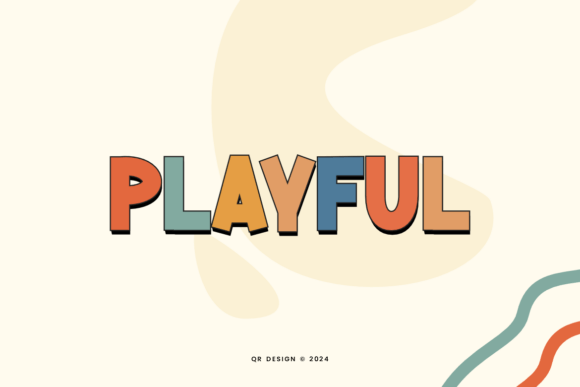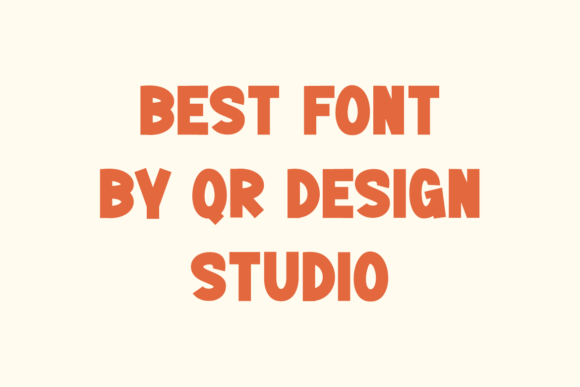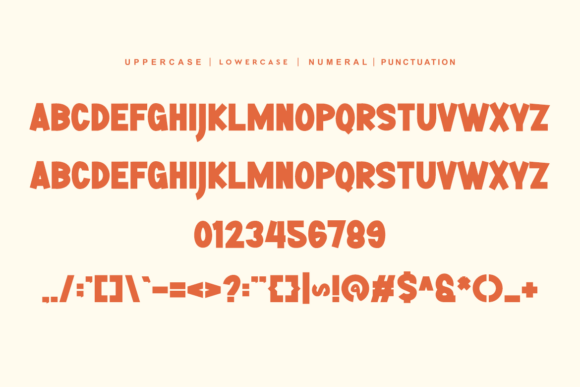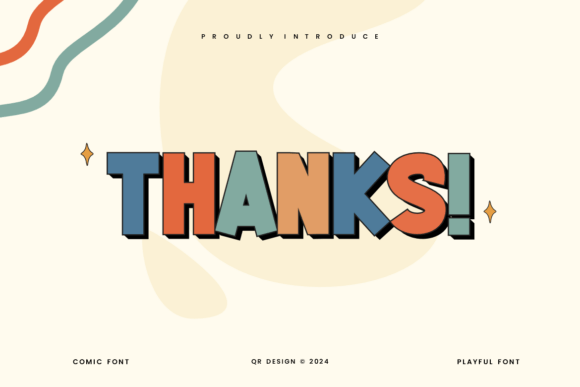
Goruday Font: The Bold and Trendy Display Font for Designers and Crafters
In the world of design, a font can make all the difference in creating a visually appealing and effective visual project. For designers and crafters looking for a bold and trendy display font, Goruday Font is an excellent choice. This all-caps font features the perfect amount of trendiness, making it perfect for various design projects, from crafting and digital designing to presentations and greeting cards making.
What is Goruday Font?
Goruday Font is a bold, all-caps display font designed to make a statement. Its unique and trendy design makes it stand out from other fonts, making it perfect for projects that require a bit of flair. The font is versatile and can be used for a wide range of design projects, including:
- Crafting: Use Goruday Font to add a personal touch to your crafting projects, such as handmade cards, scrapbooking, and DIY decorations.
- Digital designing: Add a bold and trendy touch to your digital designs, such as social media graphics, blog posts, and website headers.
- Presentations: Make your presentations more engaging and visually appealing with Goruday Font.
- Greeting cards making: Create stunning greeting cards for special occasions using Goruday Font.
Key Features of Goruday Font
Goruday Font has several key features that make it an excellent choice for designers and crafters:
- Bold and all-caps design: Goruday Font features a bold and all-caps design that makes it perfect for display purposes.
- Trendy and modern look: The font has a trendy and modern look that will make your designs stand out.
- Versatile: Goruday Font can be used for a wide range of design projects.
- Easy to read: Despite its bold design, Goruday Font is easy to read, making it perfect for use in presentations and other designs where readability is important.
Benefits of Using Goruday Font
Using Goruday Font in your design projects offers several benefits:
- Adds a personal touch: Goruday Font adds a personal touch to your designs, making them more unique and visually appealing.
- Increases engagement: The bold and trendy design of Goruday Font can increase engagement and make your designs more attention-grabbing.
- Saves time: With Goruday Font, you can create stunning designs quickly and easily, saving you time and effort.
- Perfect for beginners and professionals: Goruday Font is perfect for both beginners and professionals, as it is easy to use and requires no special design skills.
Tips and Tricks for Using Goruday Font
Here are some tips and tricks for using Goruday Font:
- Experiment with different colors: Goruday Font looks great in bold and bright colors, so don’t be afraid to experiment.
- Use it sparingly: While Goruday Font is bold and attention-grabbing, it can be overwhelming if used too much. Use it sparingly to add emphasis to your designs.
- Pair it with other fonts: Goruday Font pairs well with other fonts, so try pairing it with a sans-serif font for a contrasting look.
Goruday Font is a bold and trendy display font that is perfect for designers and crafters looking to add a personal touch to their designs. With its versatile design and ease of use, Goruday Font is an excellent choice for a wide range of design projects. Whether you’re a beginner or a professional, Goruday Font is a great addition to your design toolkit.